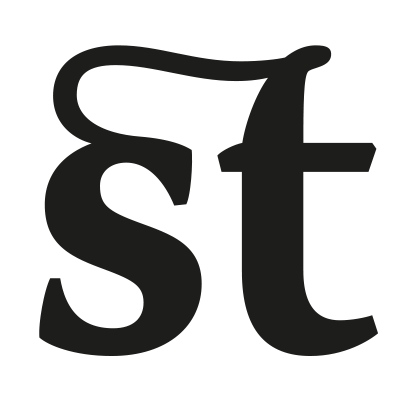
A ligature is an visual and/or technical connection of two ore more letters or glyphs.
Dutch: ligatuur
French: ligature
German: Ligatur
Italian: legatura
Polish: ligatura
Portuguese: ligadura, ligadura tipográfica
Russian: лигату́ра
Spanish: ligadura
Turkish: Bağ